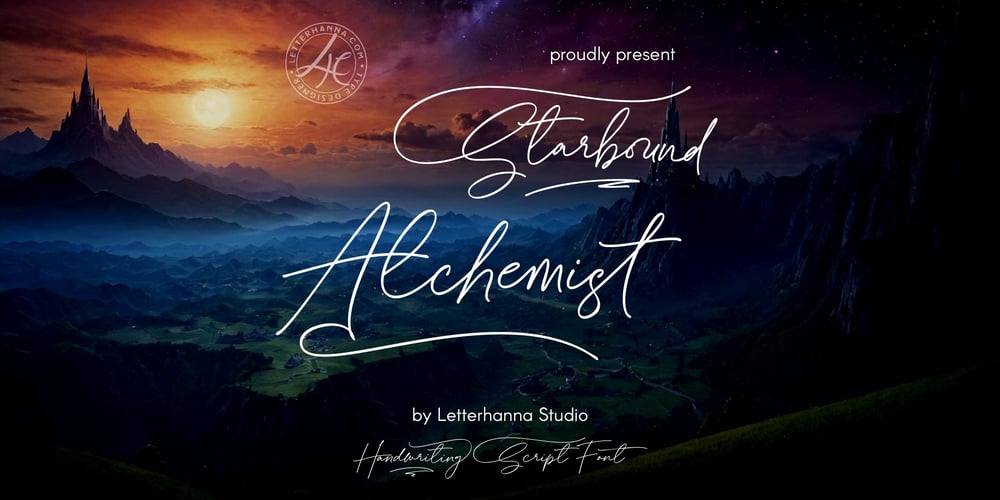
Starbound Alchemist Font Family was designed by Rinaldo Hasibuan and published by Letterhanna Studio. Starbound Alchemist contains 1 styles and family package options. Embark on a celestial journey with Starbound Alchemist, a new handwritten script font that captures the essence of cosmic wonder and arcane knowledge. Its whimsical glyphs dance across the page, evoking the spirit of ancient alchemists and stargazers.